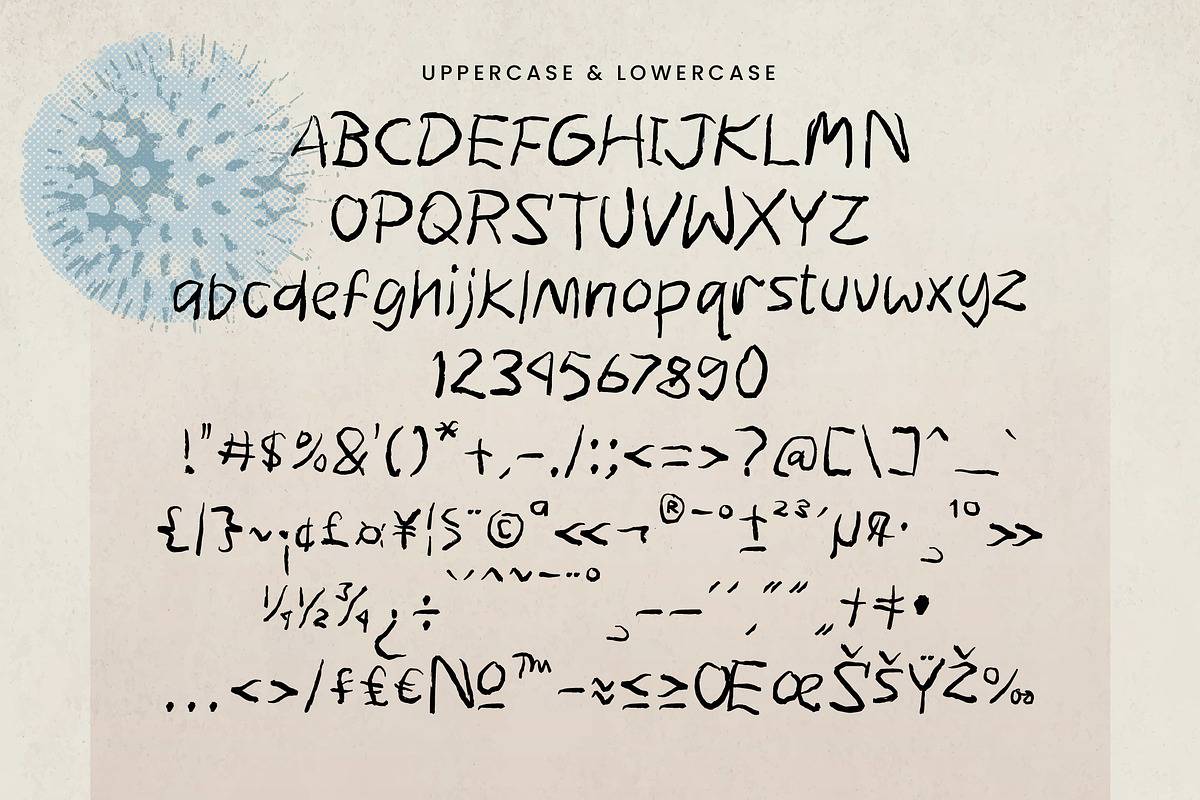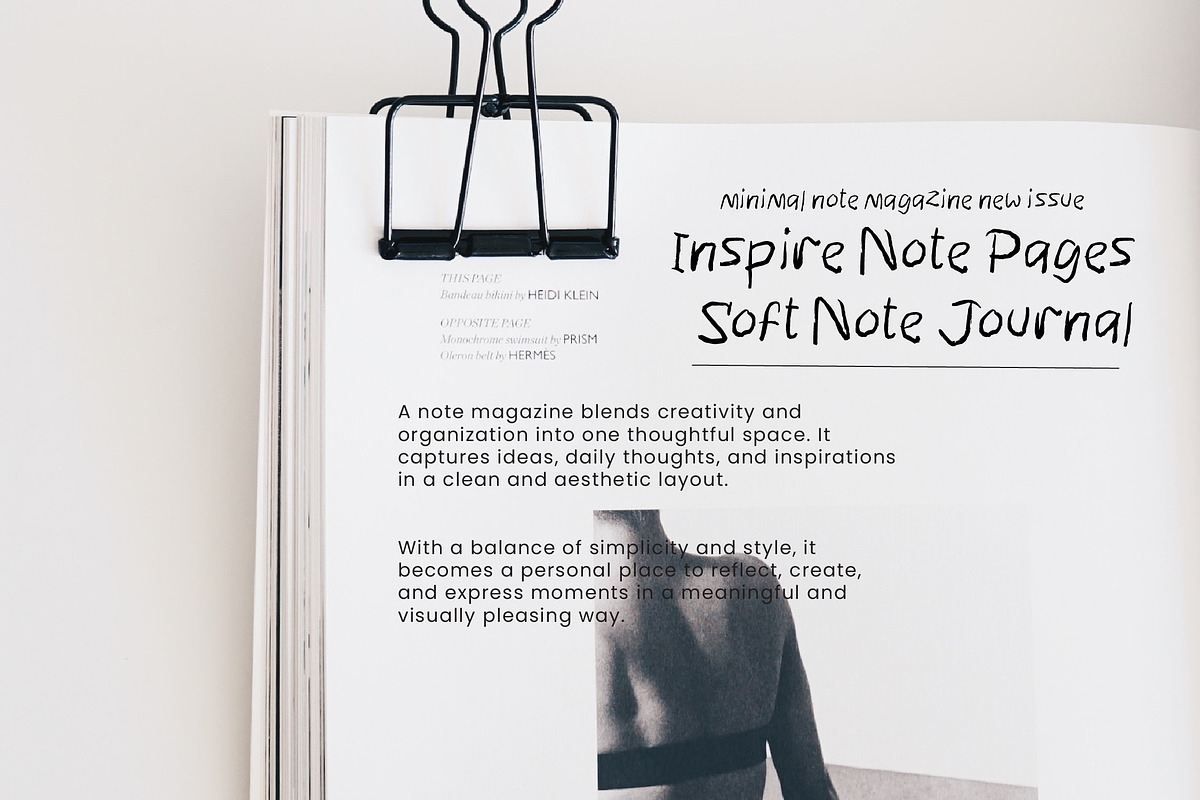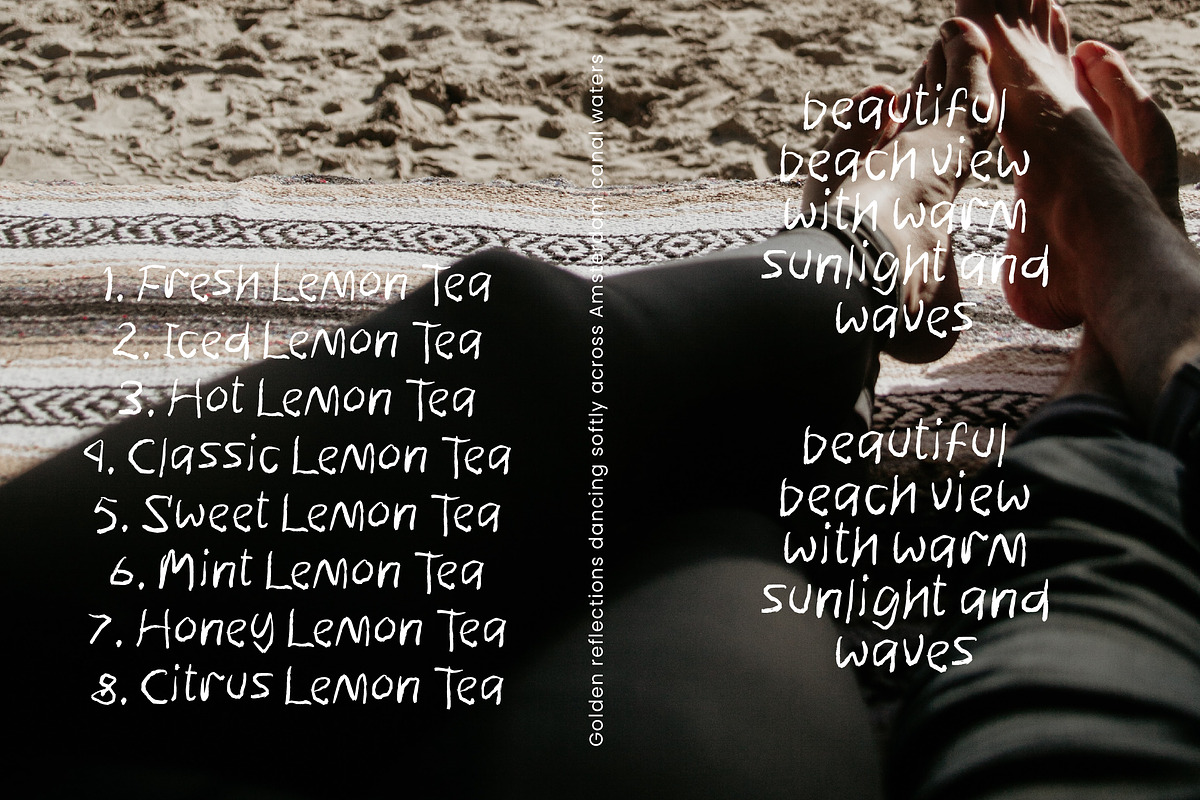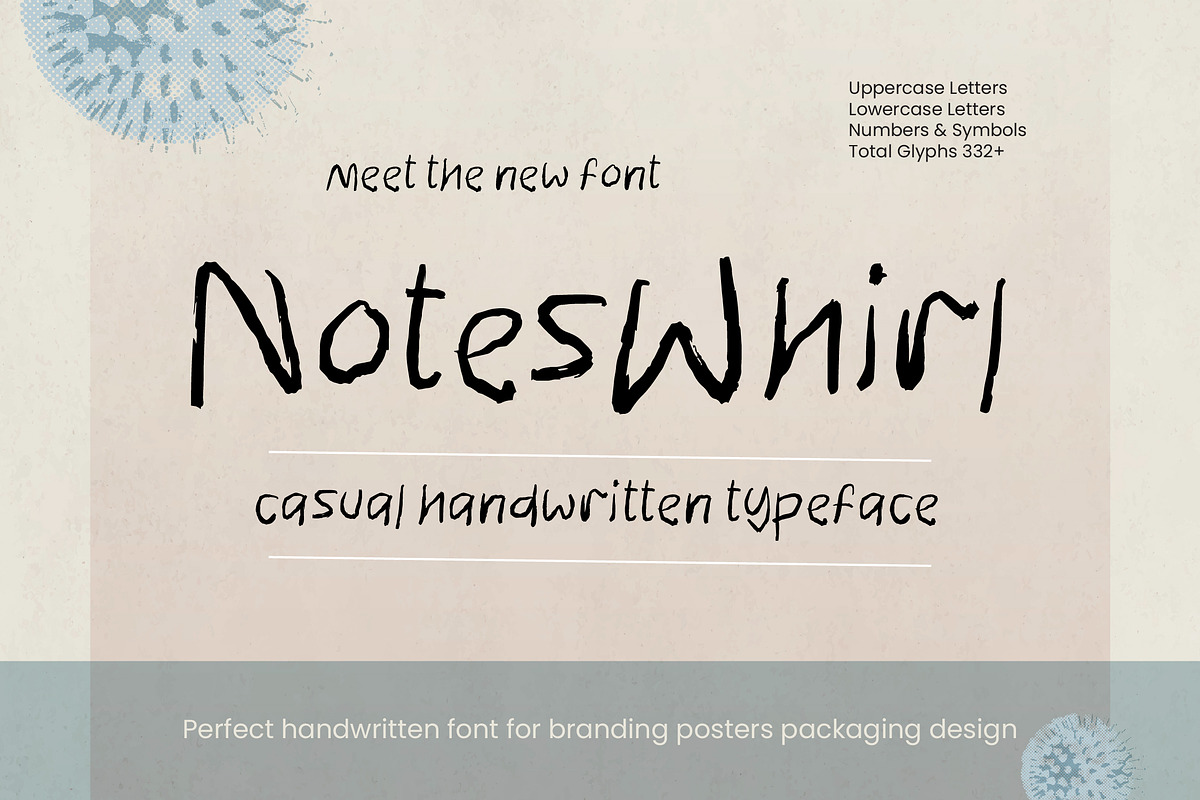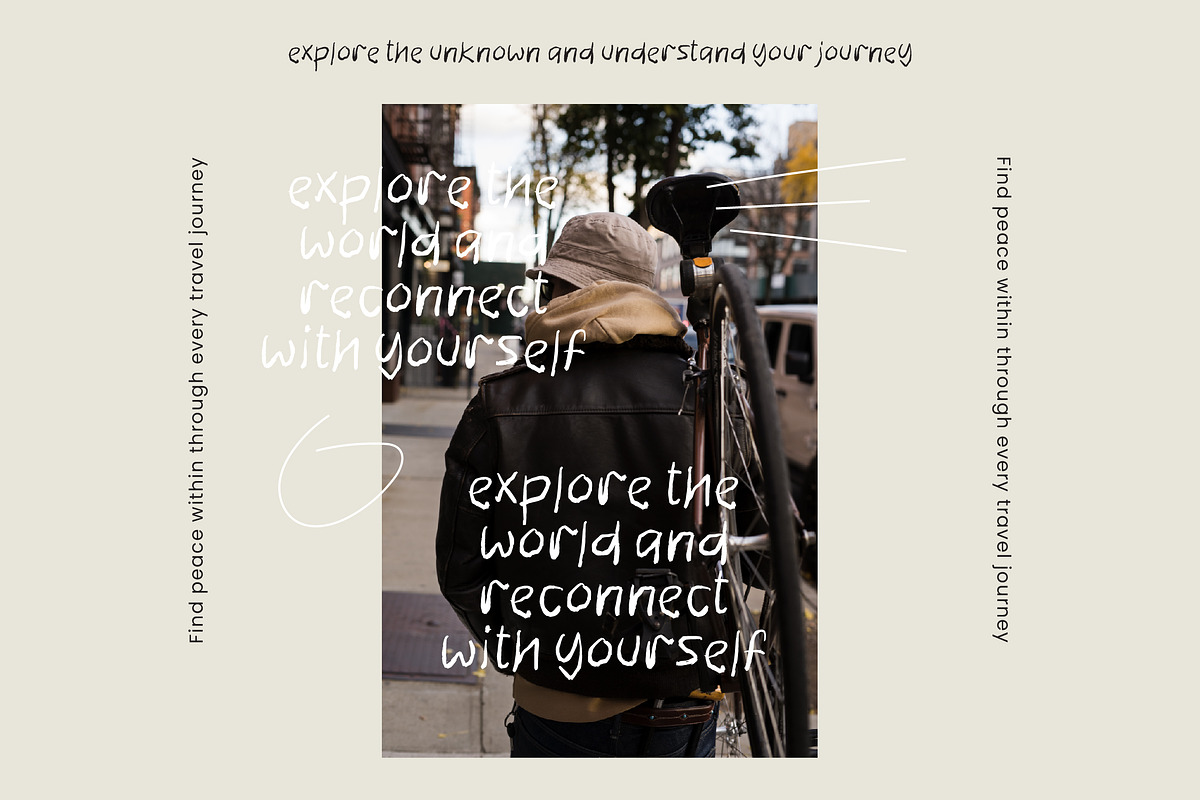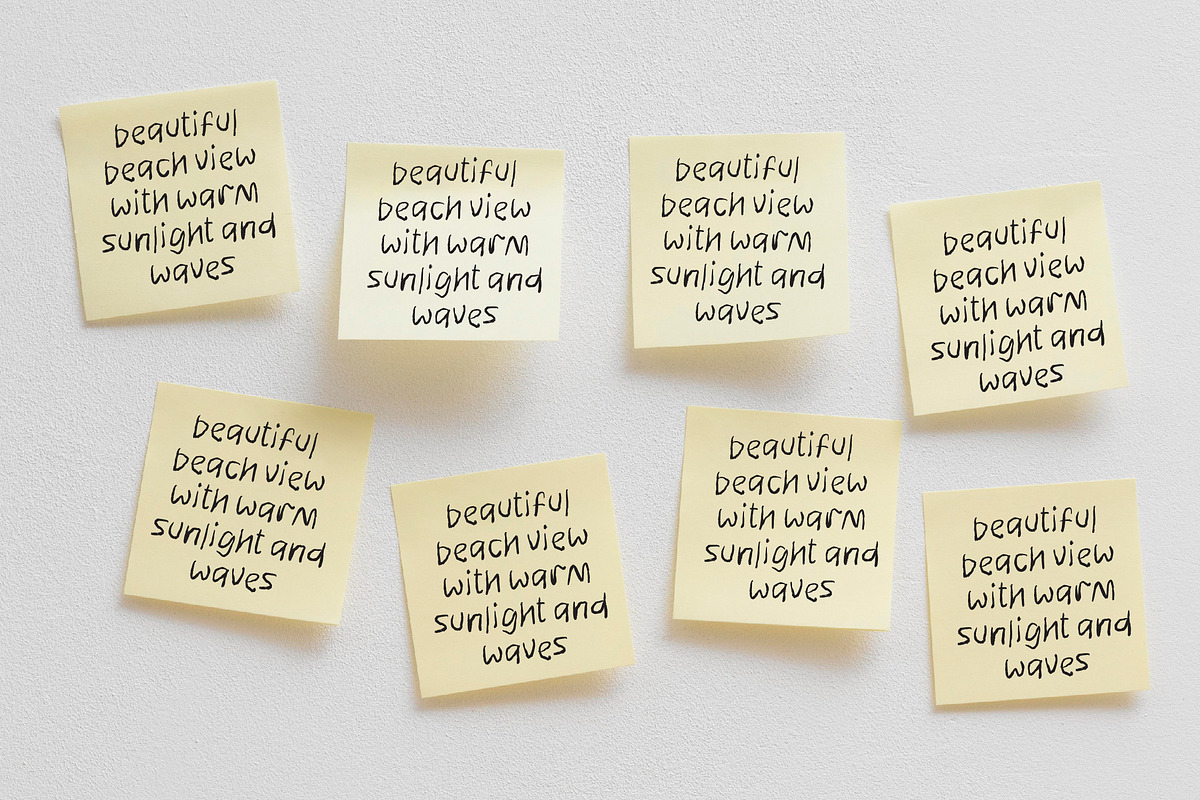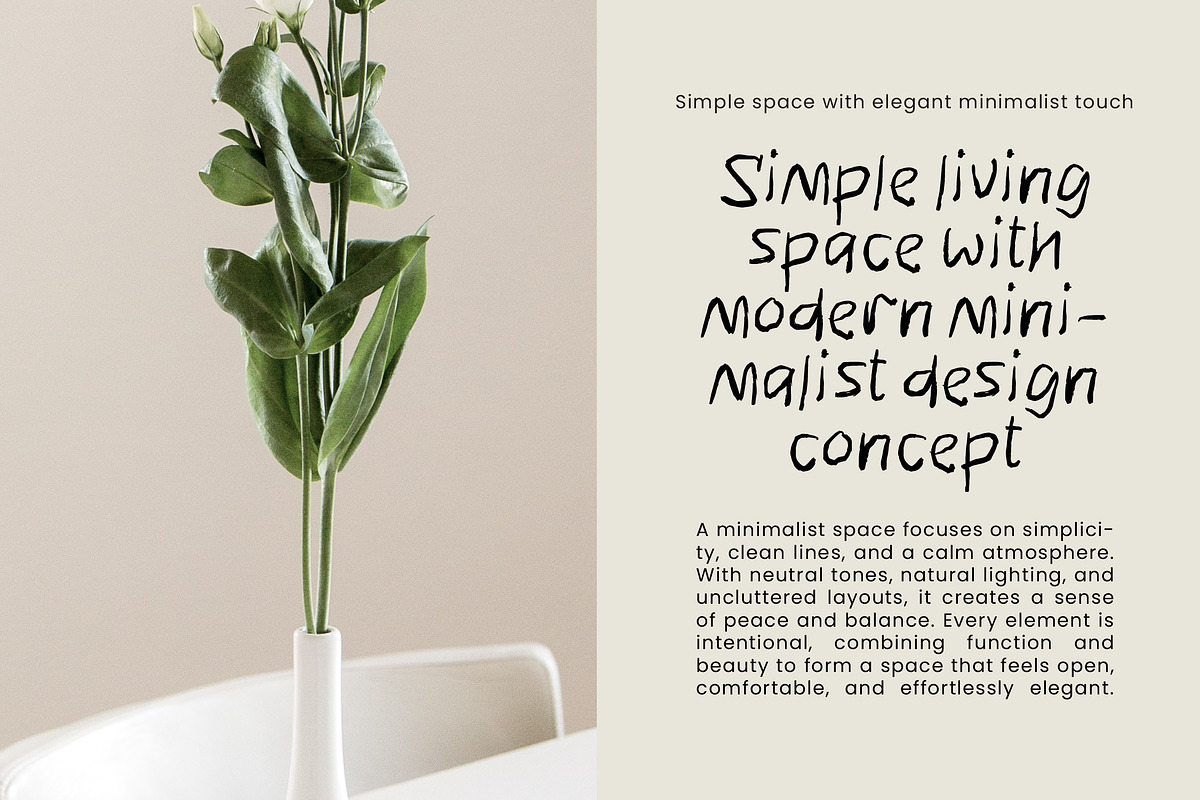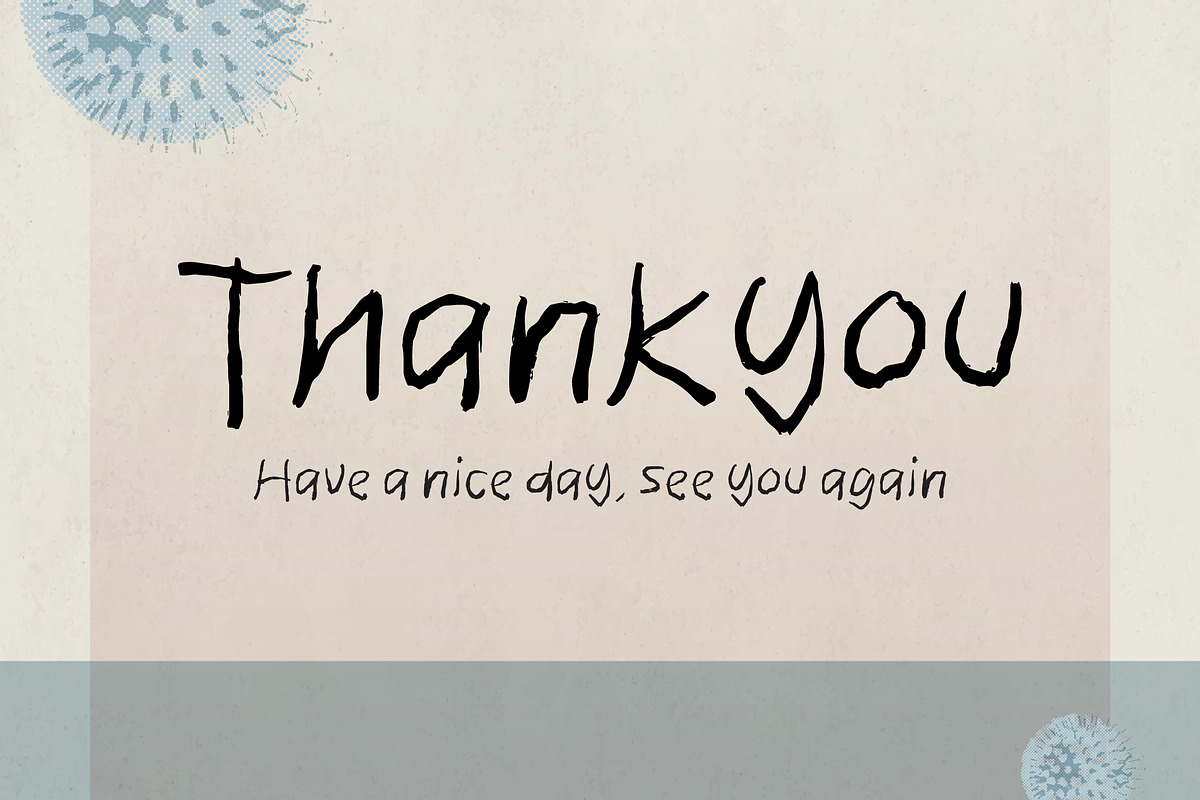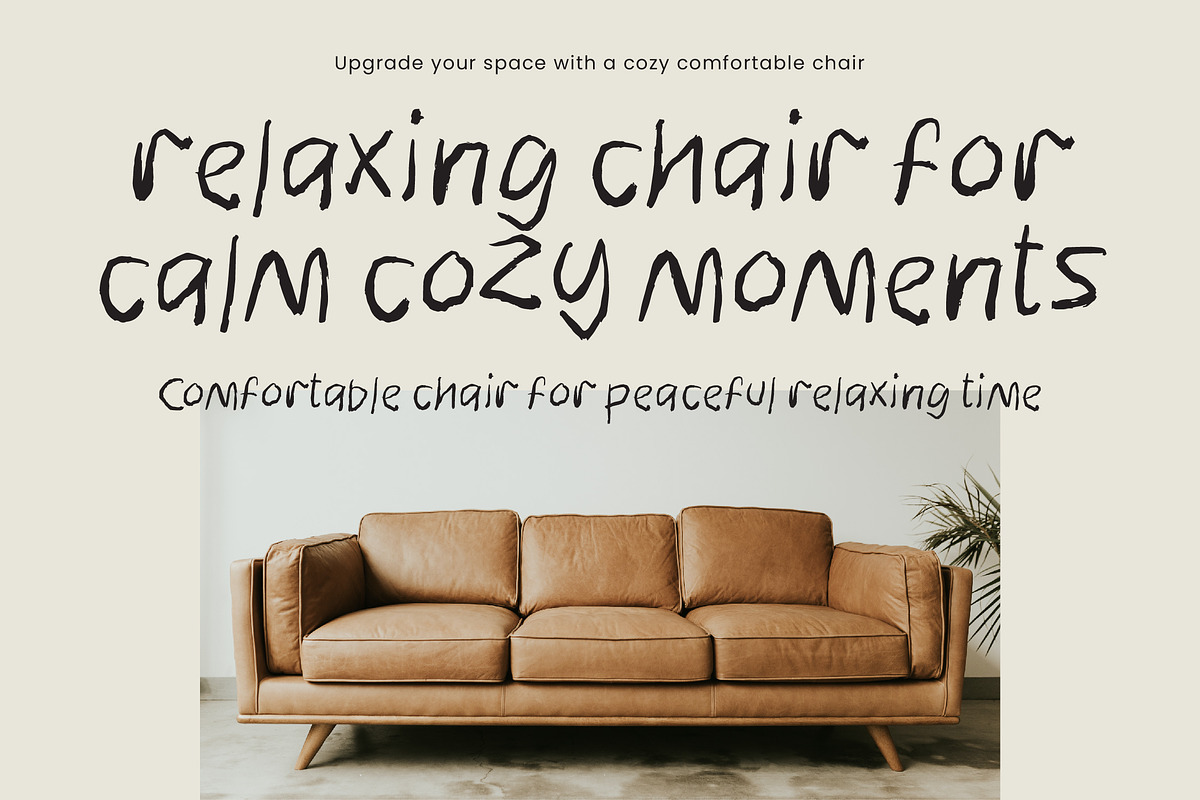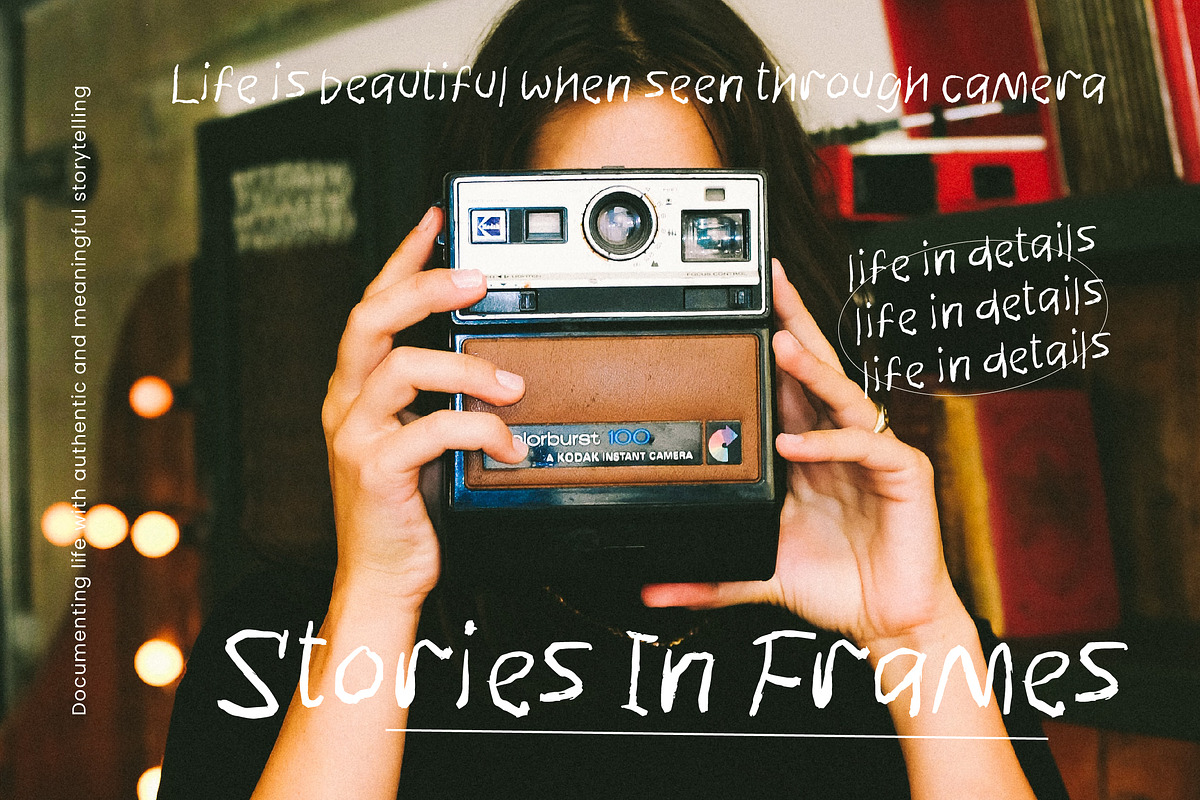
Notes Whirl Casual Handwritten
Notes Whirl – Casual Handwritten Font
Notes Whirl is a clean and casual handwritten font designed for everyday creativity. With its simple and natural look, it brings a friendly and authentic feel to any project.
Perfect for notes, branding, social media, blogs, packaging, quotes, and designs that require a relaxed and personal style.